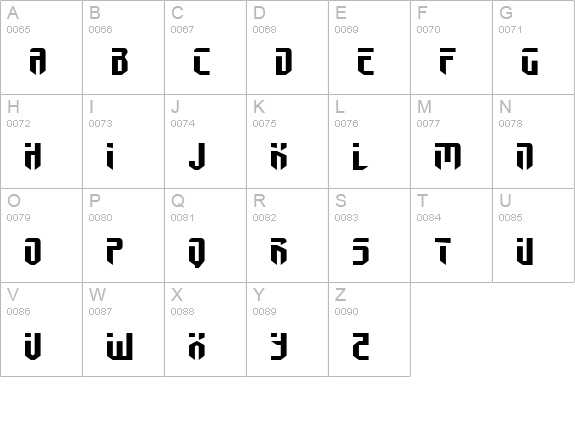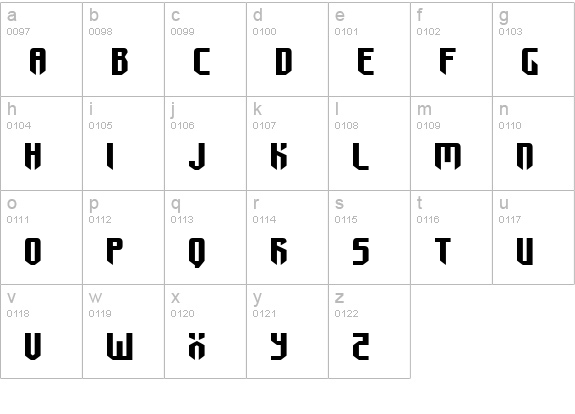
Fedyral II Expanded is a distinctive, extended-width variant in the Fedyral typeface family \xE2\x80\x94 well suited to design and typography projects.
Fedyral II Expanded font is a stylish and modern typeface that is perfect for a wide range of design projects. With its sleek lines and elegant curves, this font exudes sophistication and creativity. The expanded version of Fedyral II offers even more versatility, making it an excellent choice for headlines, titles, and branding materials. What's even better is that Fedyral II Expanded font is available for free download at FontsMarket.com. So whether you're working on a personal project or a commercial design, you can easily access this beautiful font without any cost. Don't miss out on the opportunity to enhance your designs with Fedyral II Expanded font - download it now and unleash your creativity!